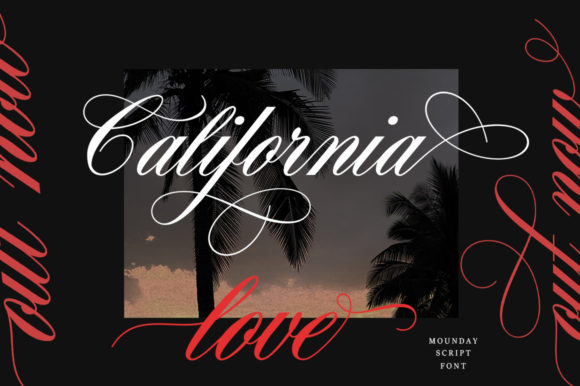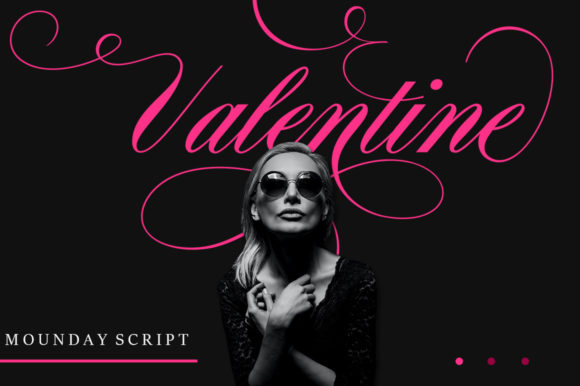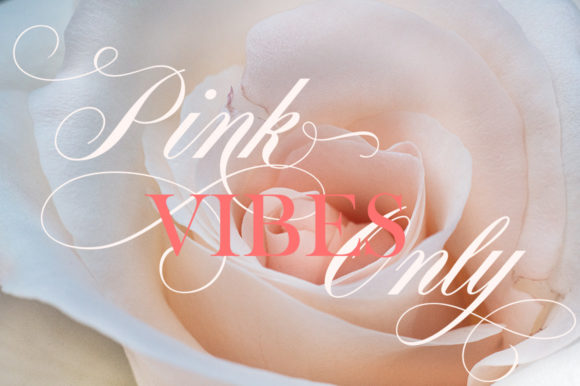
Introduction to Mounday Calligraphy Font
Mounday Calligraphy is a distinct graceful script font.
Key Features of Mounday Calligraphy Font
Why Choose Mounday Calligraphy Font?
Mounday Calligraphy Font offers exceptional quality and versatility, making it a valuable addition to your design toolkit. Whether you’re creating for personal projects or commercial use, Mounday Calligraphy Font delivers professional results.